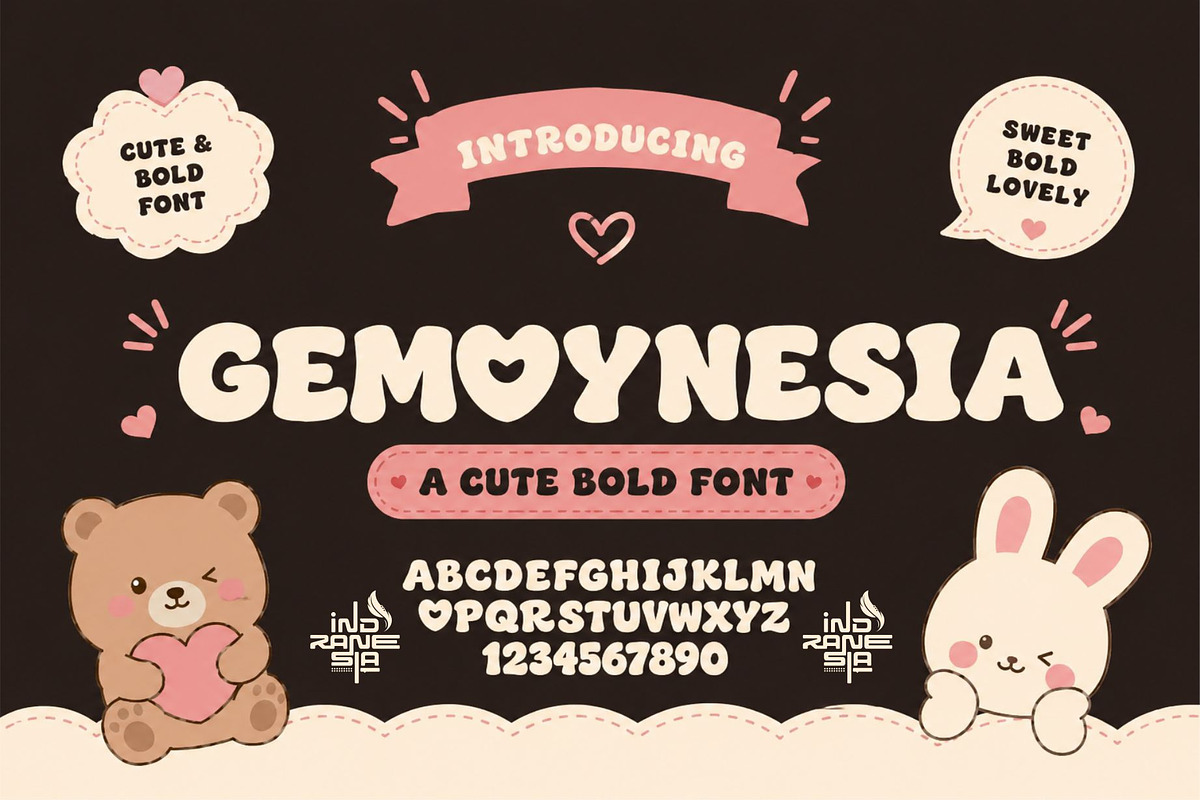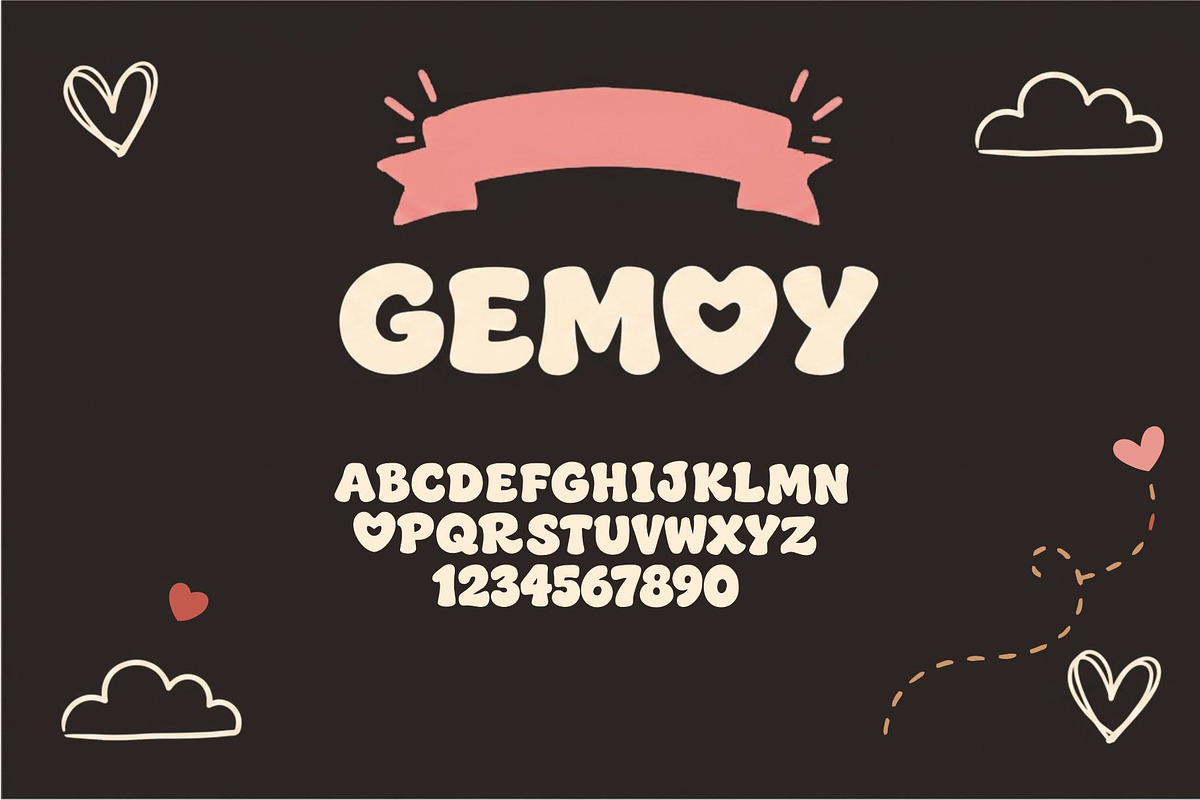
Gemoynesia – Soft Bold Playful Font
Gemoynesia is a cute and playful display font designed to bring joy and charm to your creative projects. Featuring bold rounded letters, soft curves, and adorable heart details, this font delivers a fun kawaii-inspired look that instantly stands out. Perfect for kids-themed designs, branding, logos, social media posts, packaging, posters, invitations, and more.
Whether you’re creating sweet branding concepts or cheerful digital content, Gemoynesia adds a warm, friendly, and lovable personality to every design.
Uppercase letters
Cute heart accents
Bold rounded style